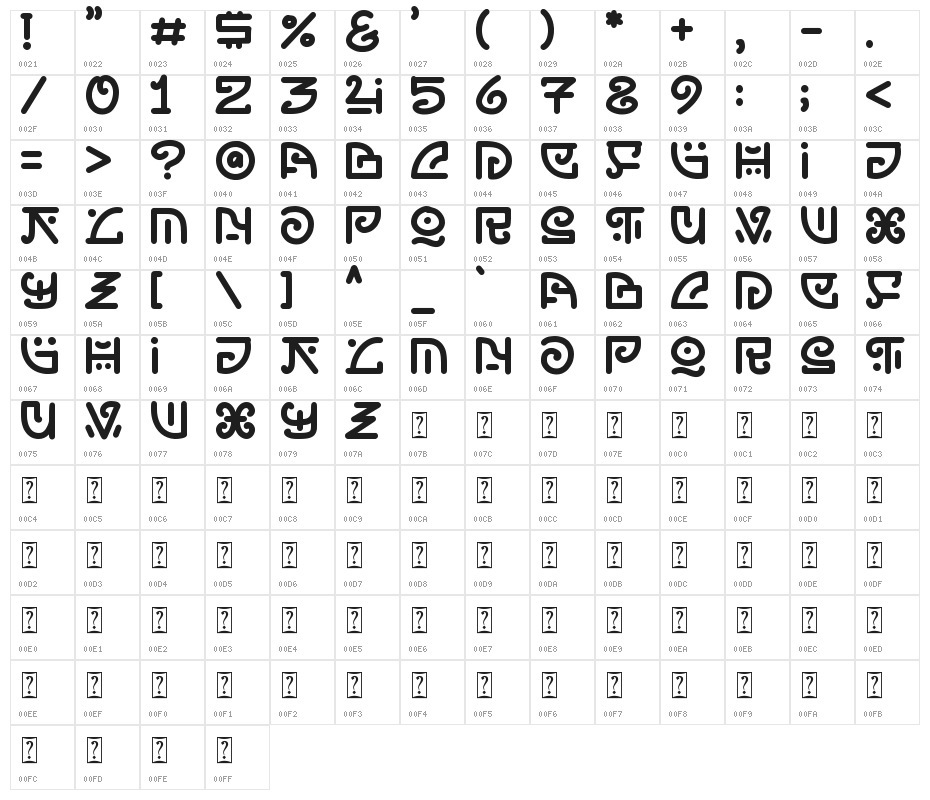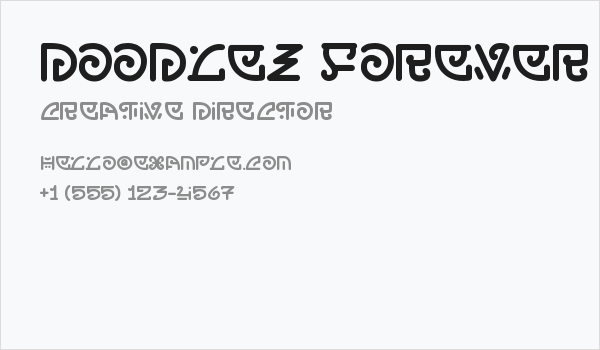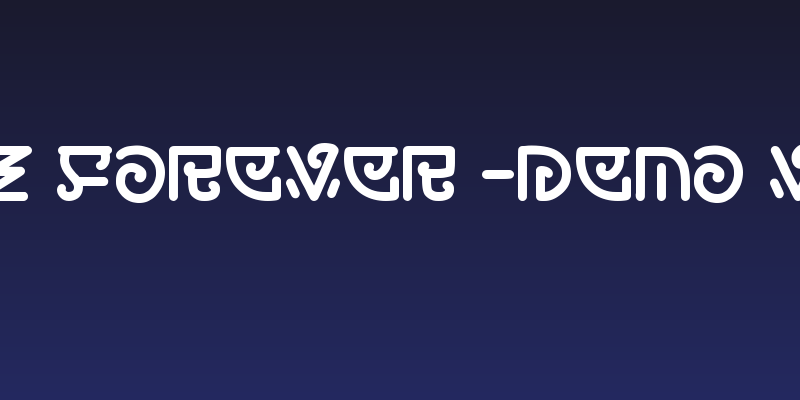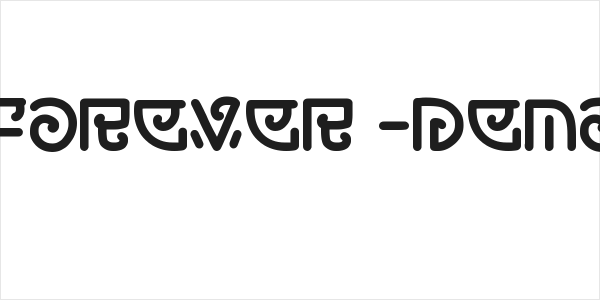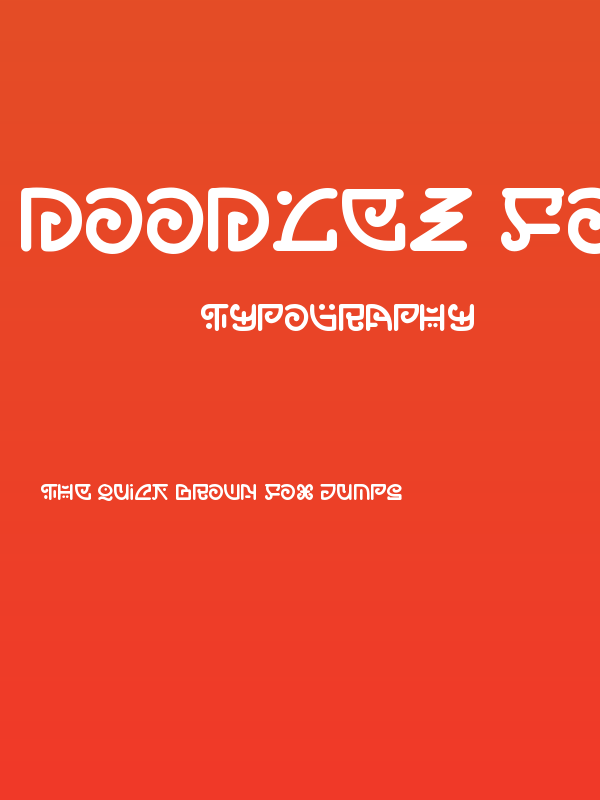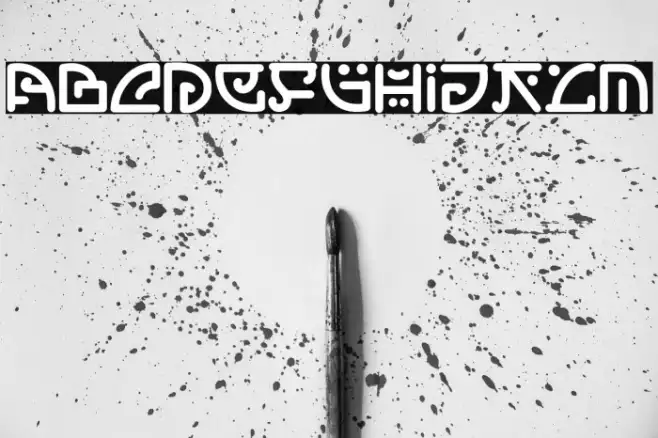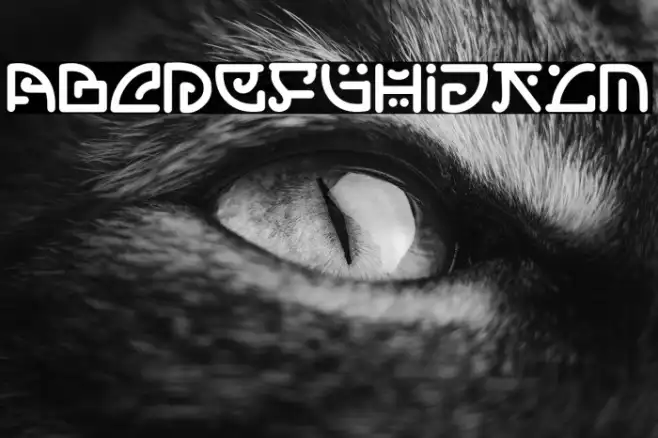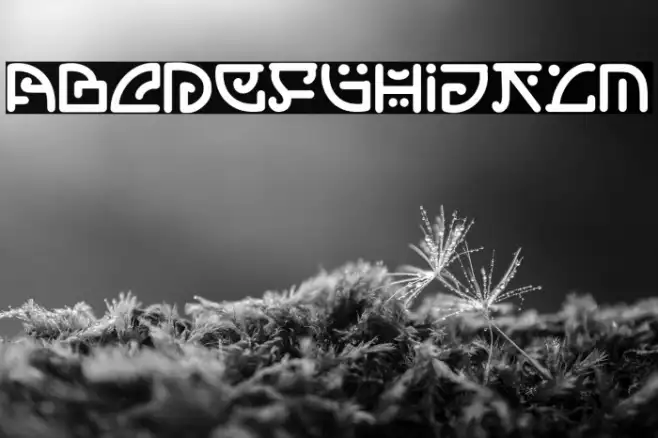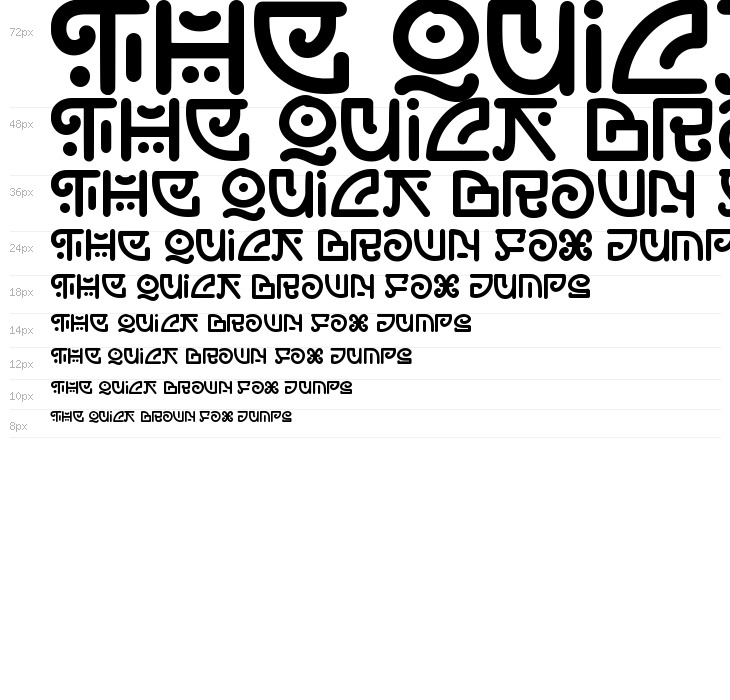
doodlez forever -demo version- Font
doodlez forever -demo version- Description
This font features a playful and decorative style, characterized by its bold, rounded shapes and unique geometric elements. Each character is designed with a combination of curves and straight lines, creating a whimsical and artistic appearance. The uppercase and lowercase letters maintain a consistent style, with some characters incorporating dots and additional strokes for added flair. The numbers and special characters follow the same design principles, ensuring a cohesive look across all glyphs. The font's distinctiveness makes it suitable for creative and eye-catching designs.
| Proposed Projects | Ideal for children's book covers, playful branding, creative posters, and unique invitations. |